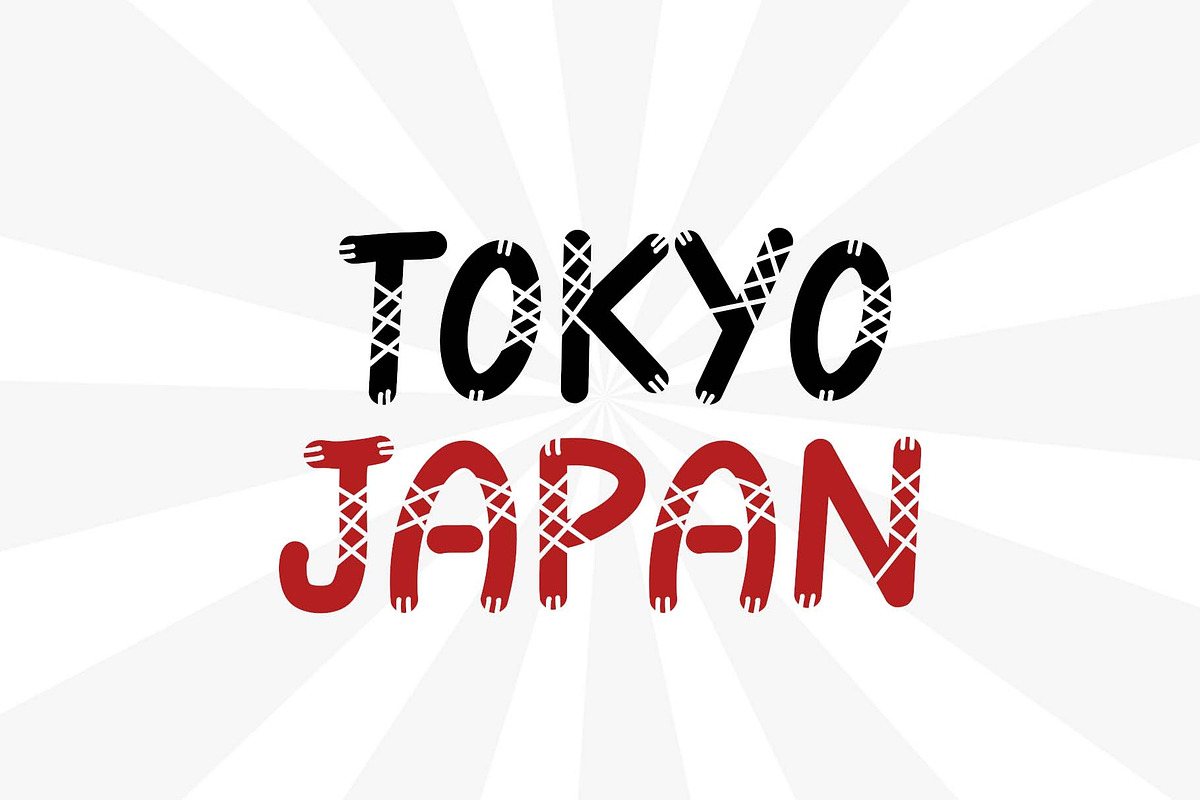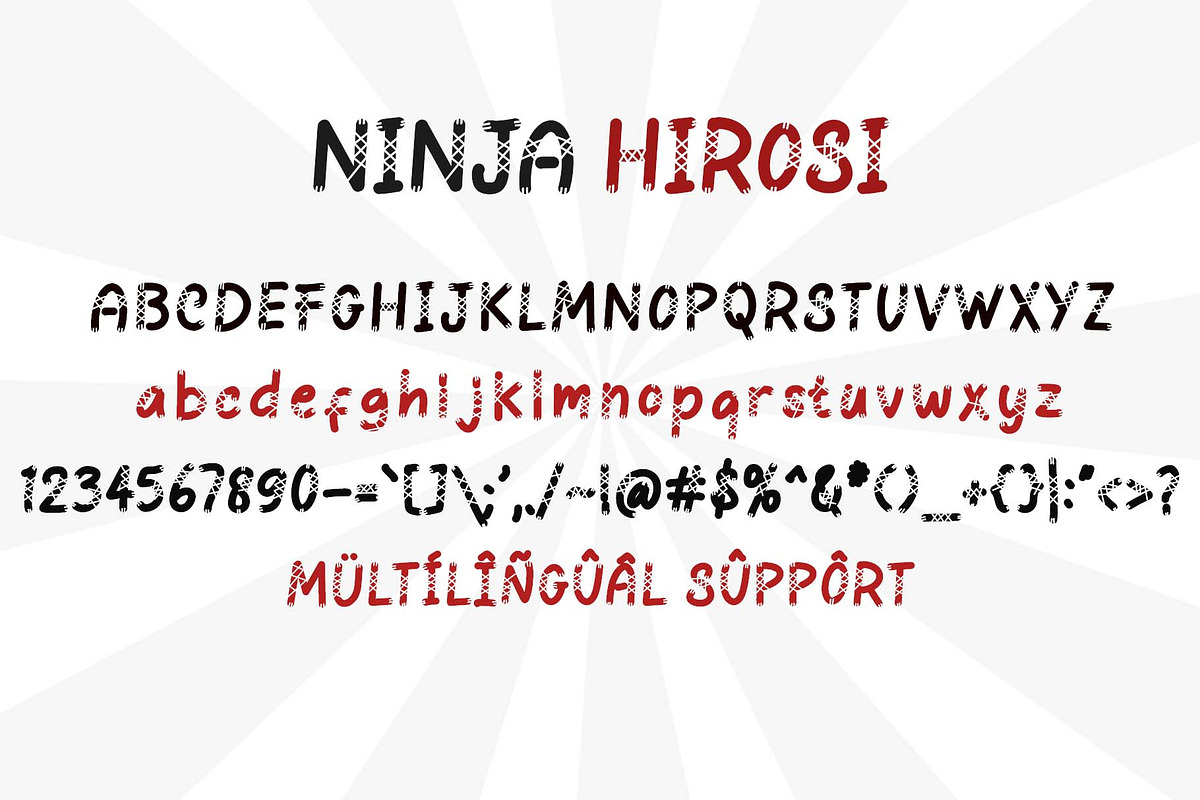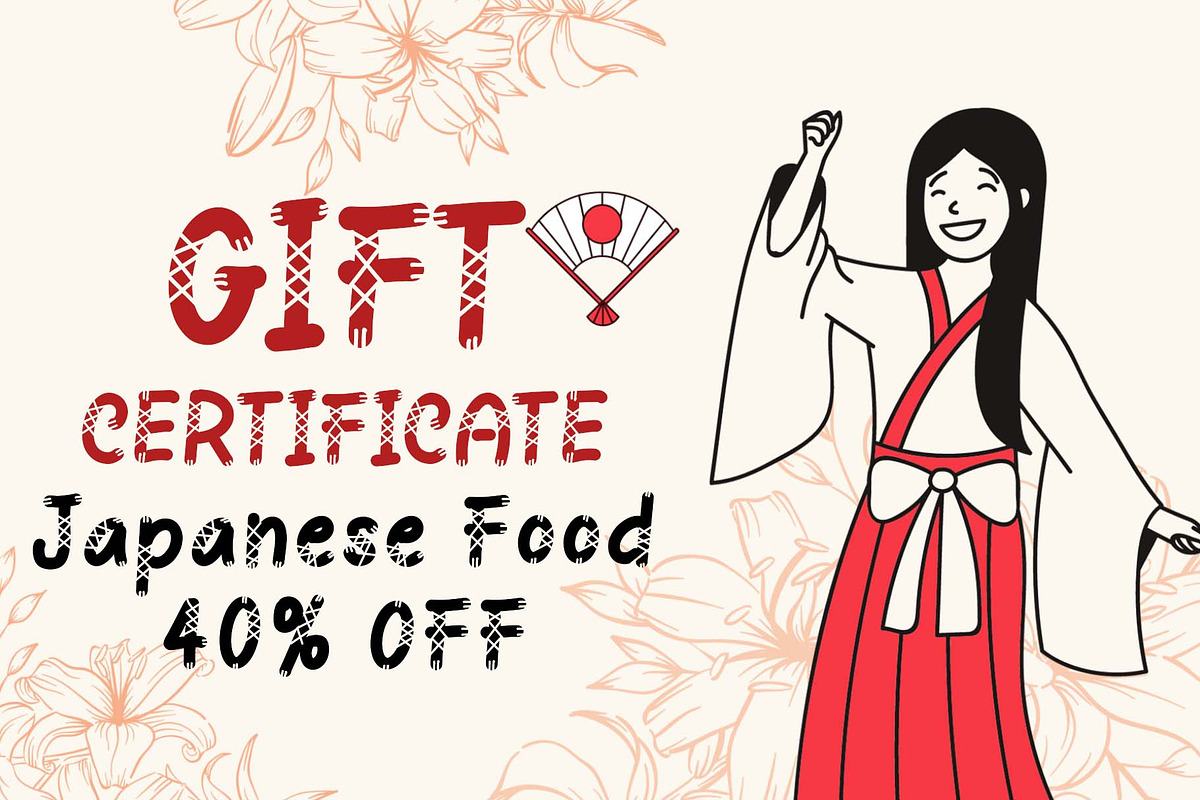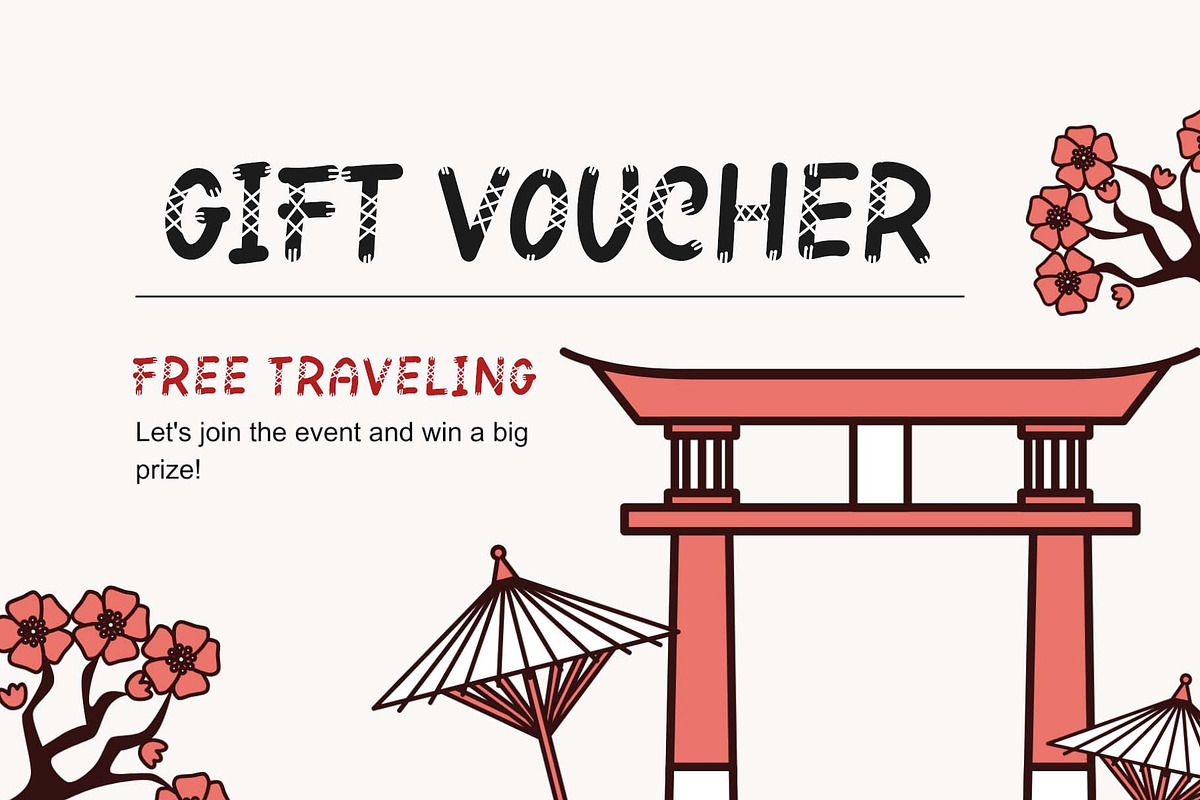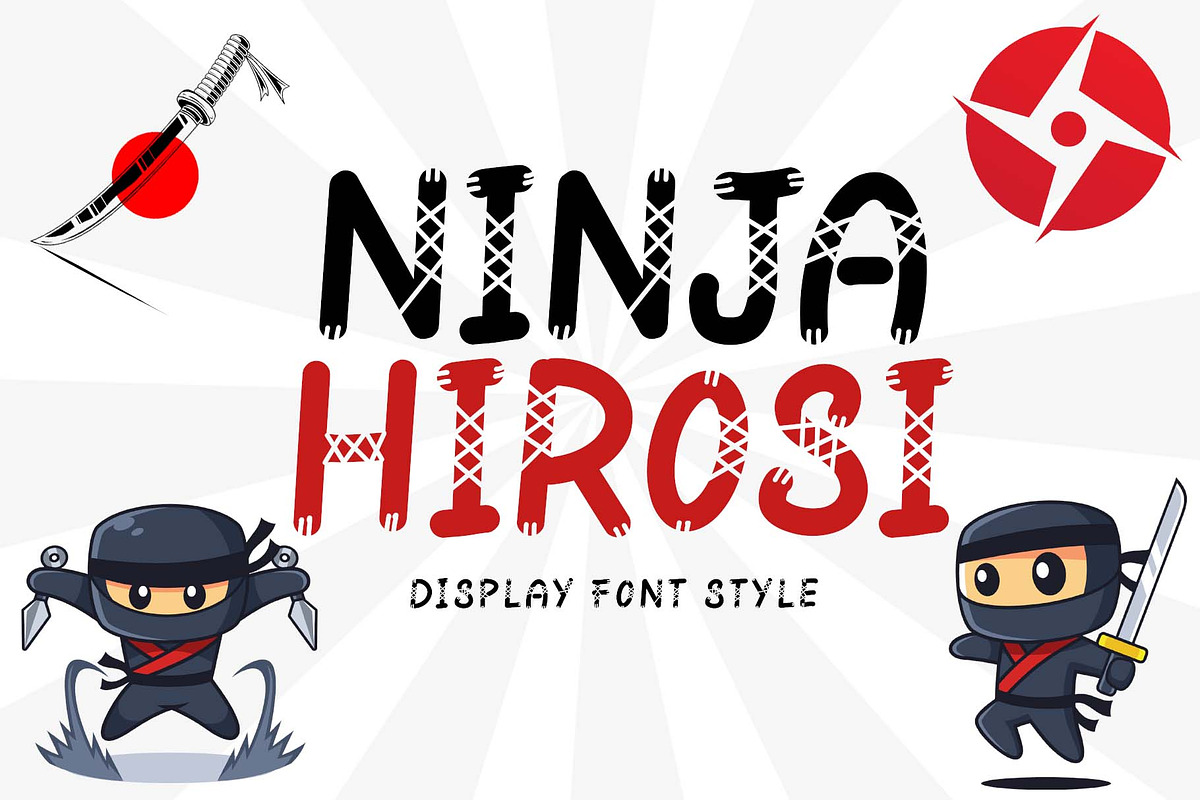
Ninja Hirosi
"Ninja Hirosi" is a very unique and cute display font. This font is equipped with uppercase, lowercase, numerals, punctuation, and multilingual support. Very suitable for comics, book titles, promotions, business branding, stickers, banners, branding, logos, film titles, and others.